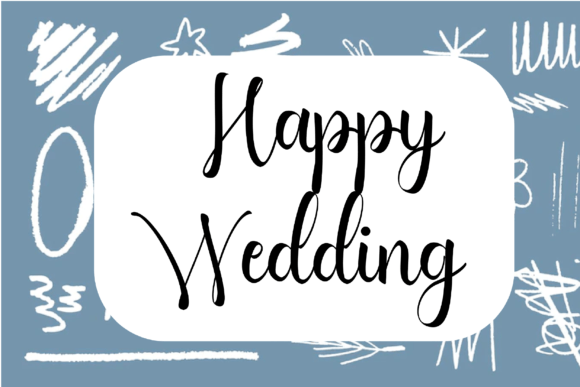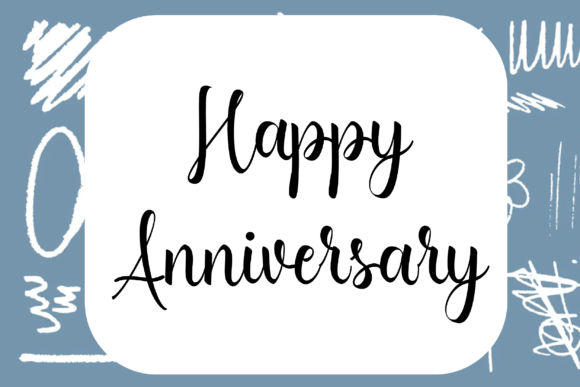
Introduction to Cat and Doodle Font
Cat and Doodle is a beautiful and light handwritten font with a unique feel and a stunning impact.
It will add a luxury spark to any design project that you wish to create .
Key Features of Cat and Doodle Font
Why Choose Cat and Doodle Font?
Cat and Doodle Font offers exceptional quality and versatility, making it a valuable addition to your design toolkit. Whether you’re creating for personal projects or commercial use, Cat and Doodle Font delivers professional results.